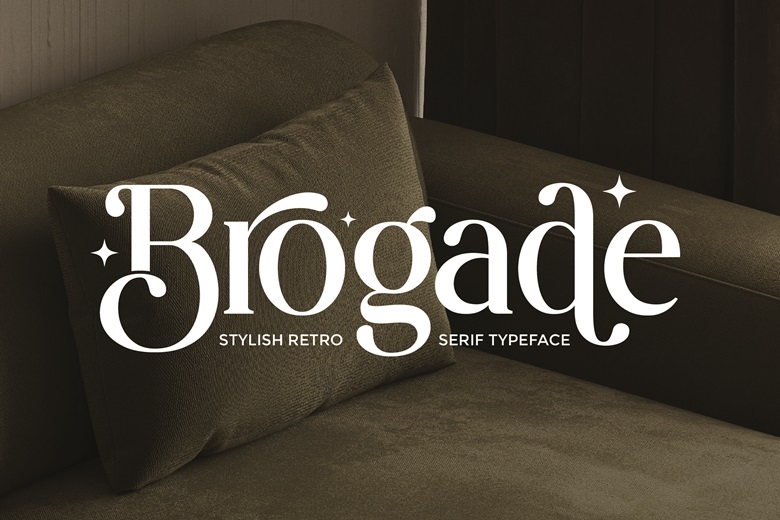
Brogade Font
Brogade is a stylish retro serif typeface that is retro and sophisticated at the same time. The curves and playful details along with accents in the form of a star make it look unique and elegant at the same time characterful.
Brogade aims to provide human touch of warmth, expressiveness and presentation to any design project, in terms of branding, package, headlines and editorial layouts.
Brogade Serif Font